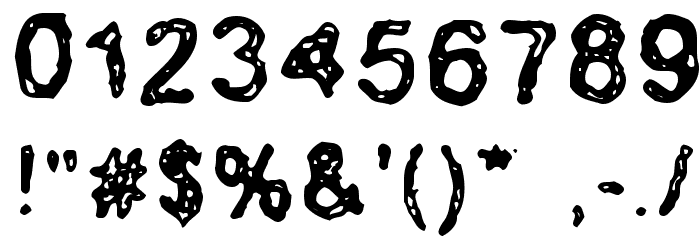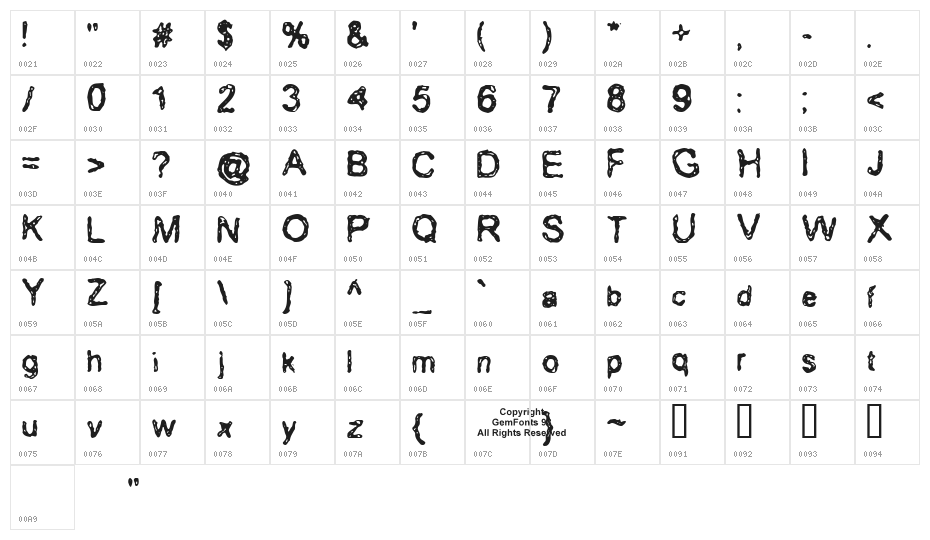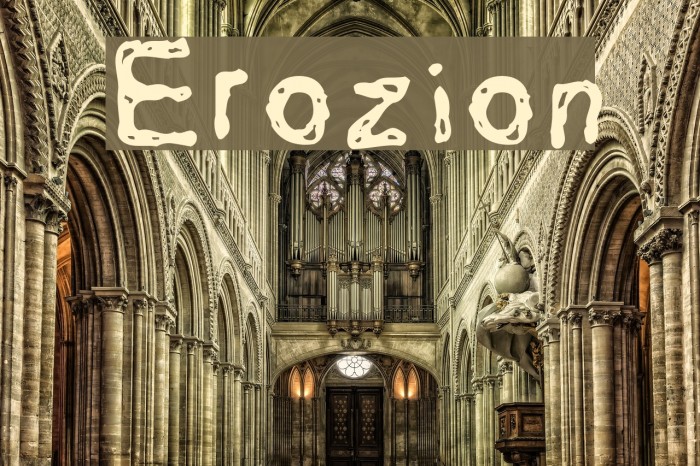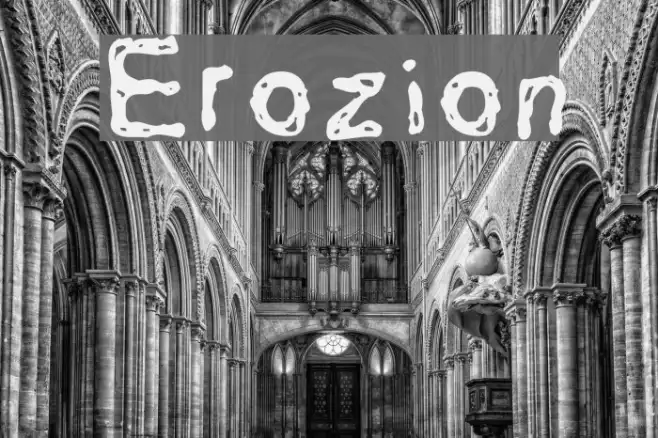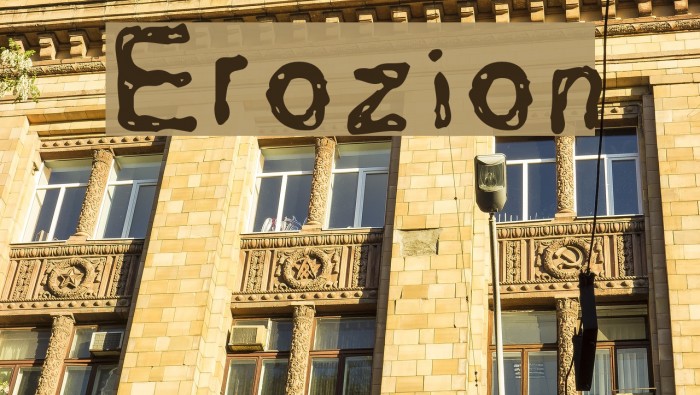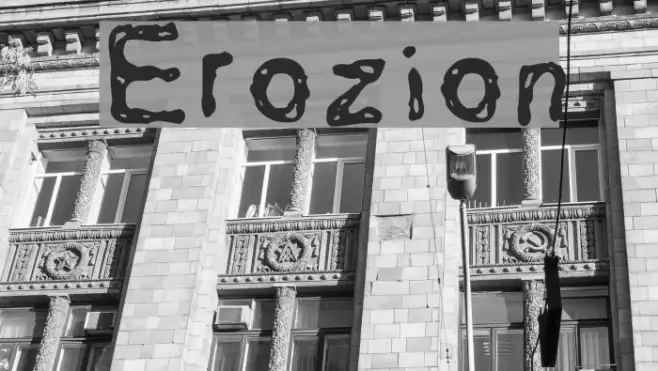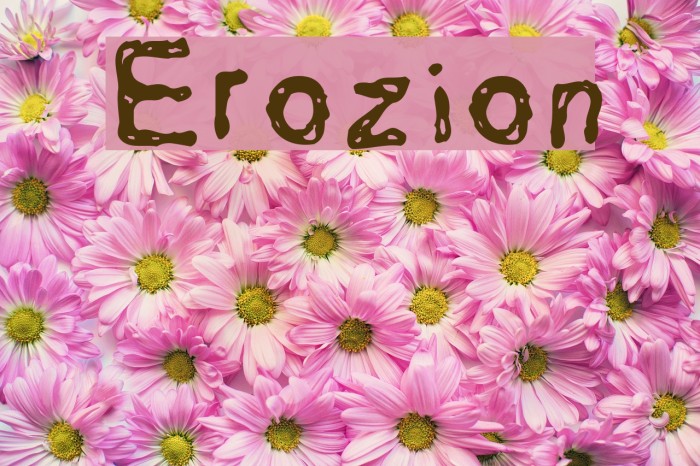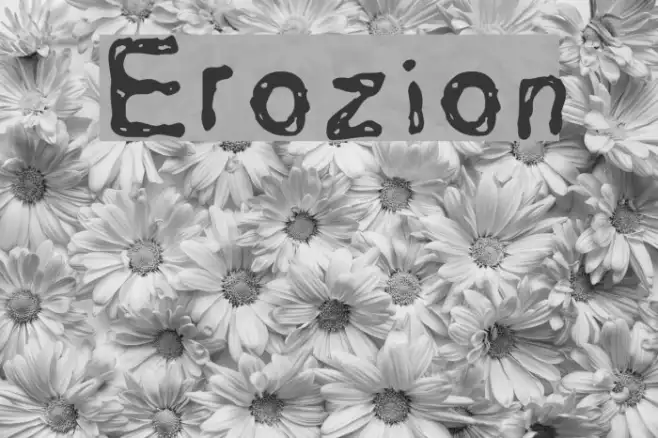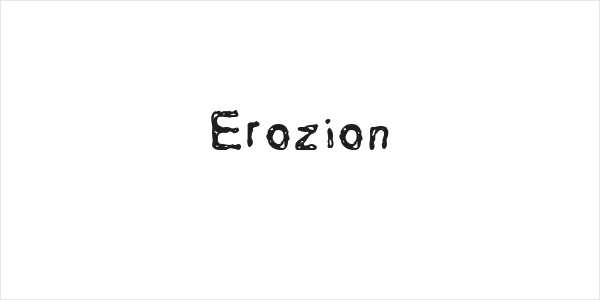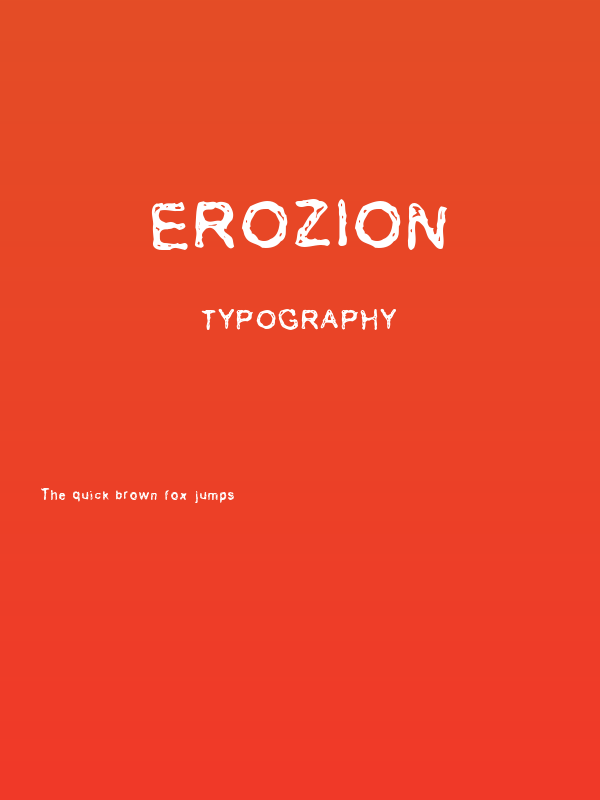
Erozion Font
Erozion Description
This font features a highly decorative and distressed style, reminiscent of eroded or weathered surfaces. The characters have an irregular, organic appearance with uneven edges and varying stroke thicknesses, giving them a unique, hand-crafted look. The uppercase and lowercase letters maintain a consistent design theme, while the numerals and special characters complement the overall aesthetic. This font's distinctive style makes it stand out, offering a bold and artistic flair that can add character to any design project.
| Proposed Projects | Ideal for projects requiring a bold, artistic touch, such as album covers, posters, branding for edgy or alternative products, and creative digital artwork. |